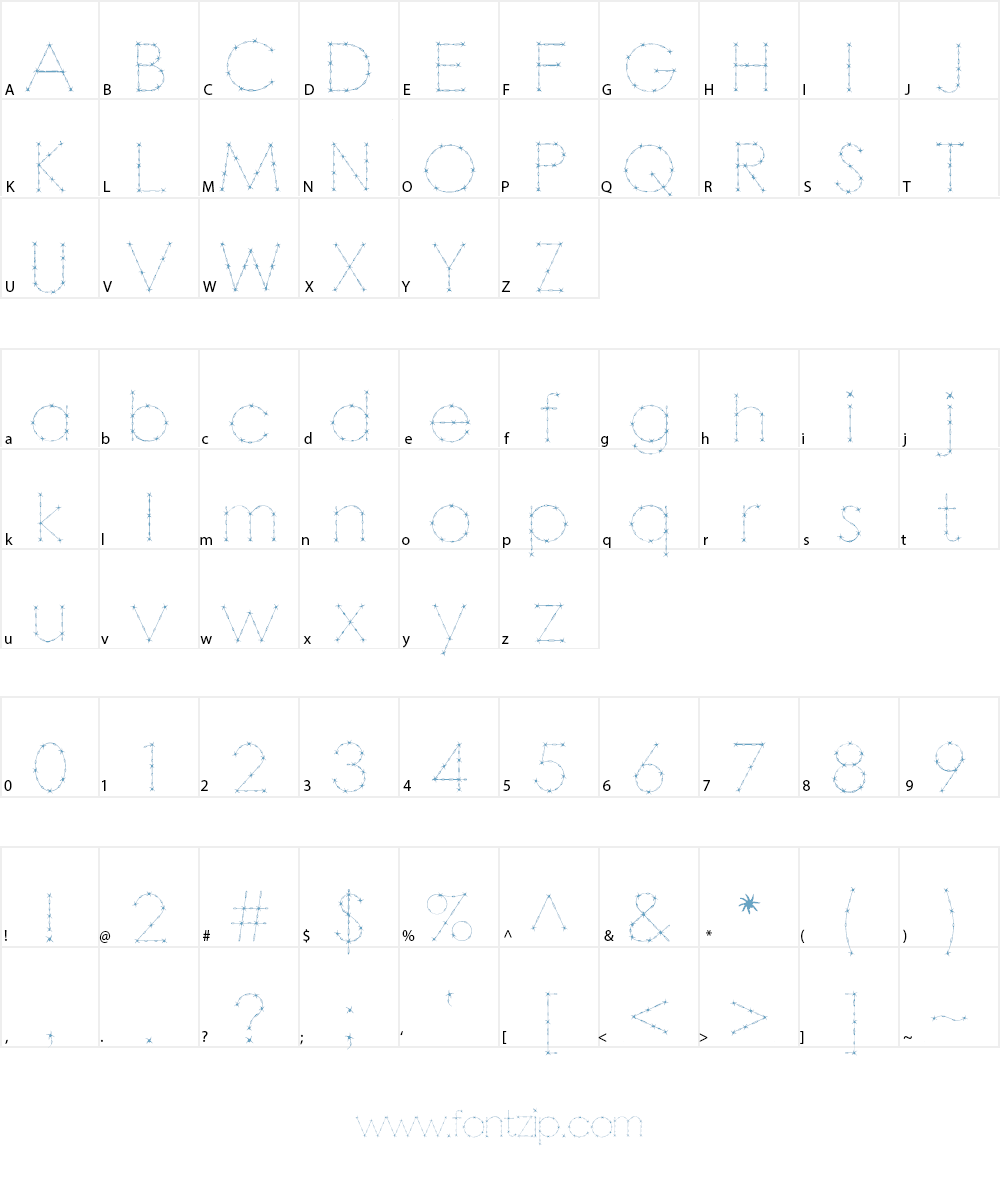
I try to incorporate a South African flavour in my fonts. And nowadays barbed wire is as typical South African as biltong, isn't it? The timing is also perfect for Freedom Day